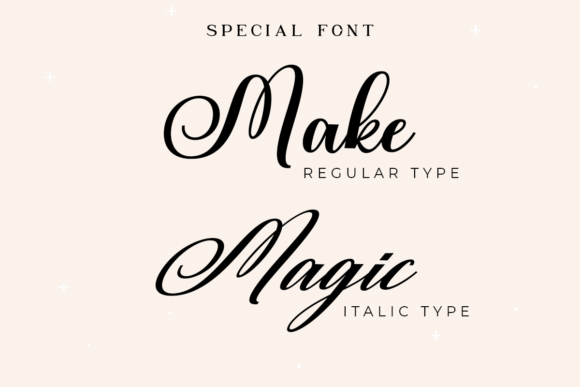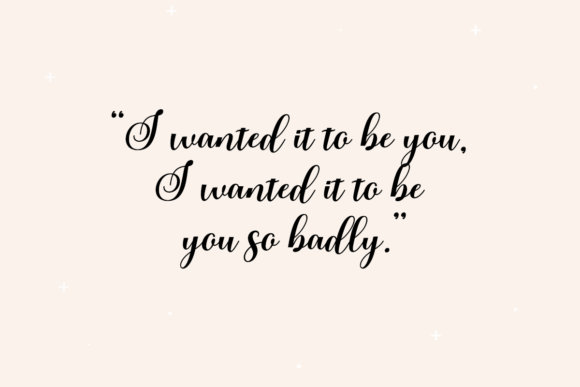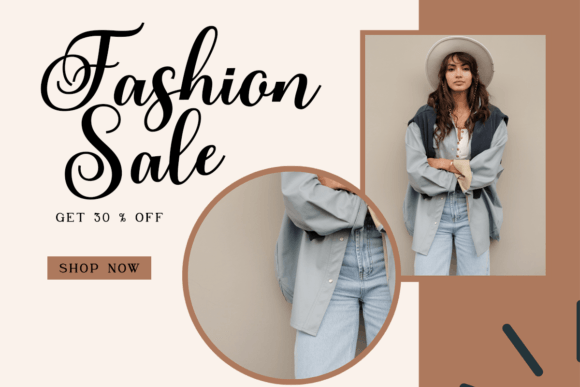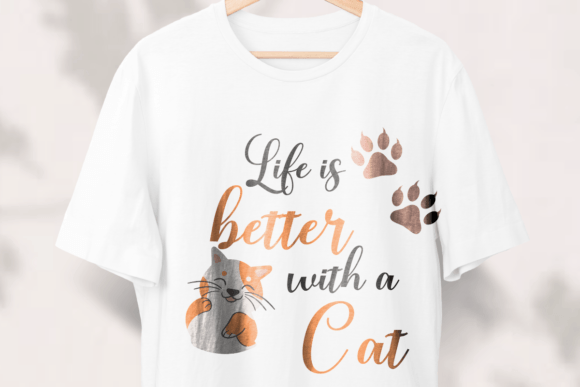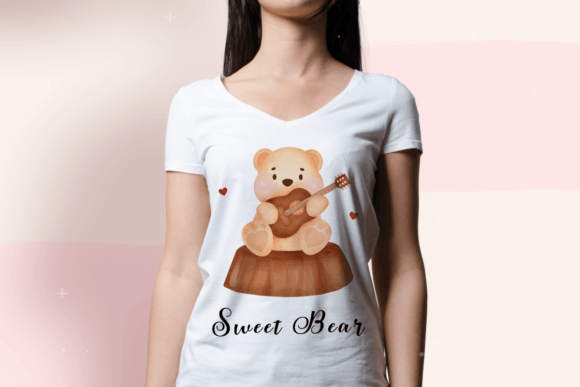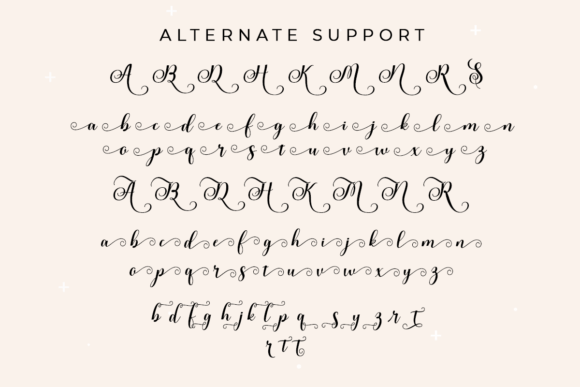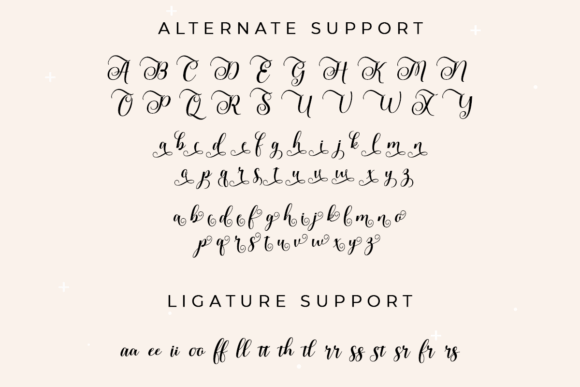
Rubeckia Font
About Rubeckia Font
Rubeckia is not just a typeface; it’s a beautiful, elegant, and refined script that adds a touch of sophistication to your designs. With its versatility, it seamlessly transitions from logos to branding and even wedding designs, all while maintaining a stylish and captivating presence that elevates any project it graces.
The beauty of Rubeckia lies not only in its aesthetic appeal but also in its functional flexibility. The font is PUA encoded, a feature that grants you easy access to a rich set of amazing glyphs and ligatures. This means that you have the creative freedom to explore and utilize a variety of characters, enhancing the uniqueness of your designs. Rubeckia’s elegance extends beyond its visual appeal, offering a seamless blend of style and accessibility.
Whether you’re working on a corporate logo that demands a refined touch, a brand identity seeking a touch of elegance, or wedding designs that require a sophisticated script, Rubeckia proves to be a versatile choice. Its refined script and beautiful letterforms add a timeless quality to your projects, ensuring a lasting and memorable impression.
As you incorporate Rubeckia into your designs, you’ll discover its ability to adapt effortlessly to various contexts. The font becomes a statement piece, embodying the essence of beauty and sophistication. Its PUA encoding ensures that accessing and utilizing the diverse glyphs and ligatures is a straightforward process, providing you with the tools to customize and enhance your designs.
In essence, Rubeckia is more than a typeface; it’s a design companion that brings elegance and refinement to your creative projects. Whether you’re a seasoned designer or embarking on a new venture, let Rubeckia be the stylish and versatile script that adds a touch of timeless beauty to your work.